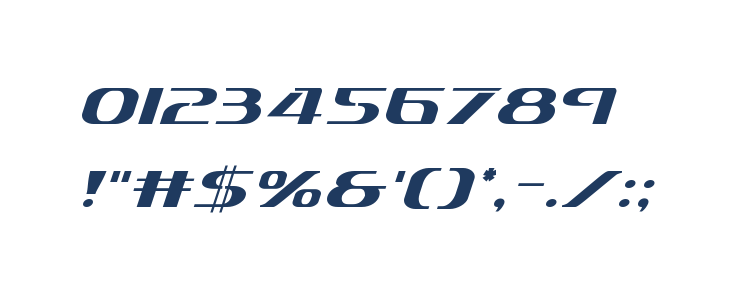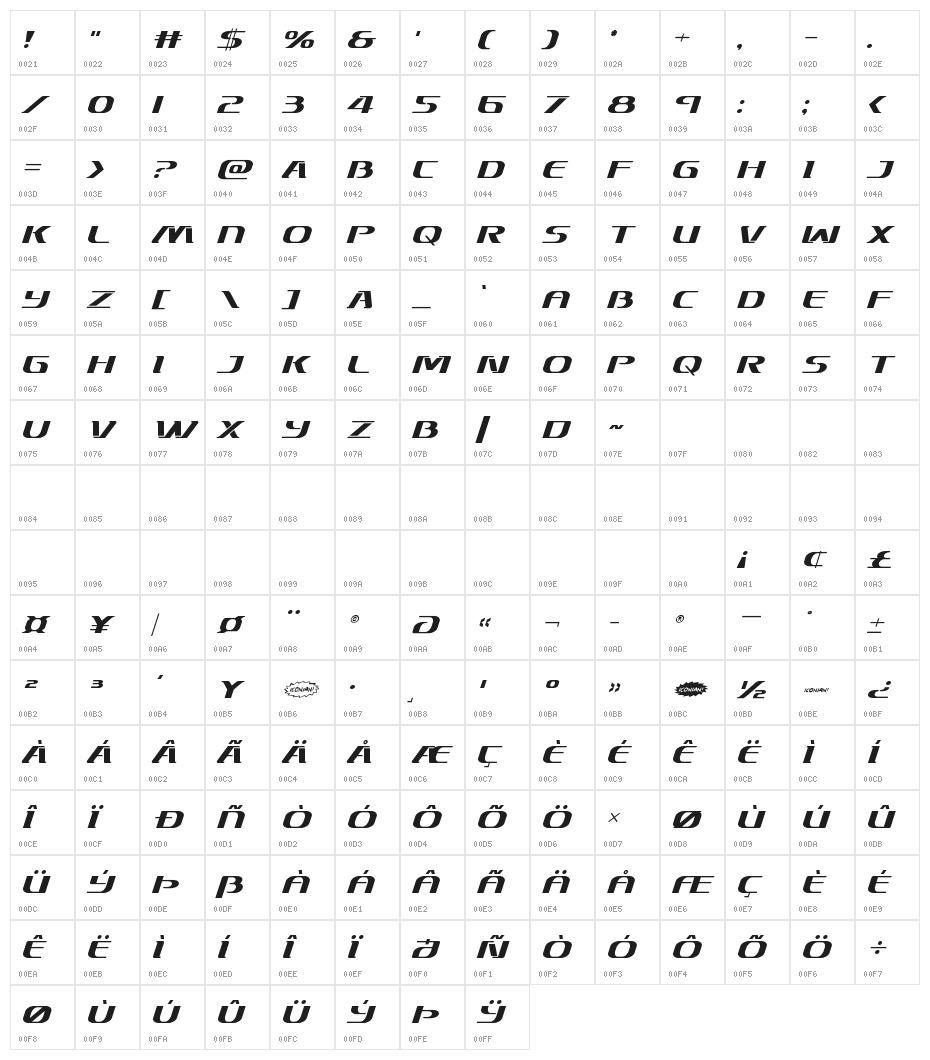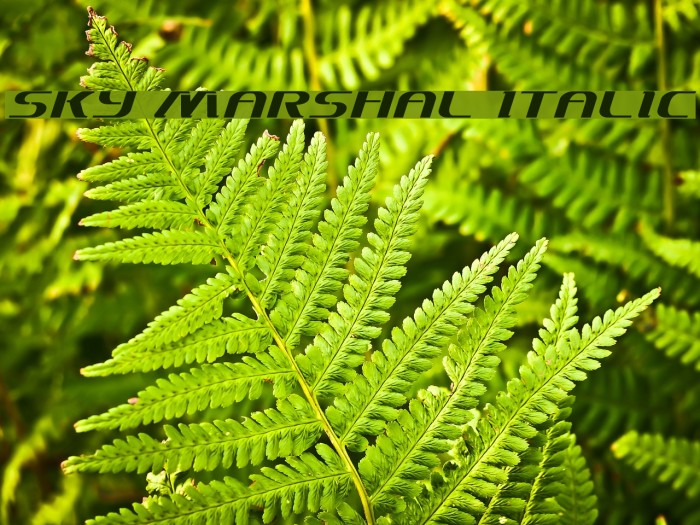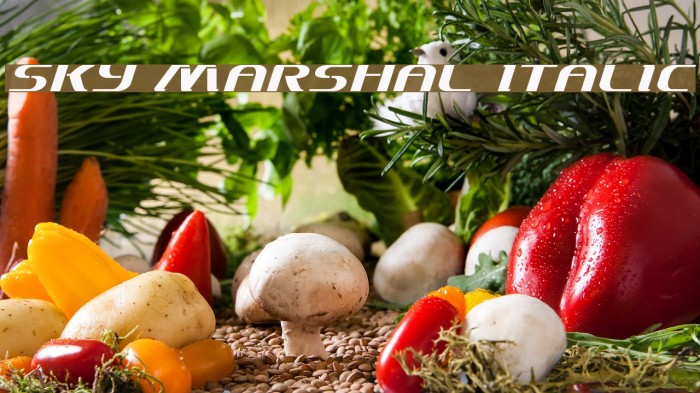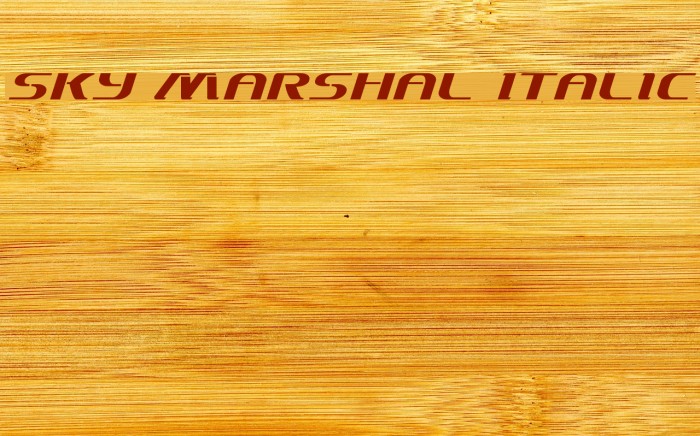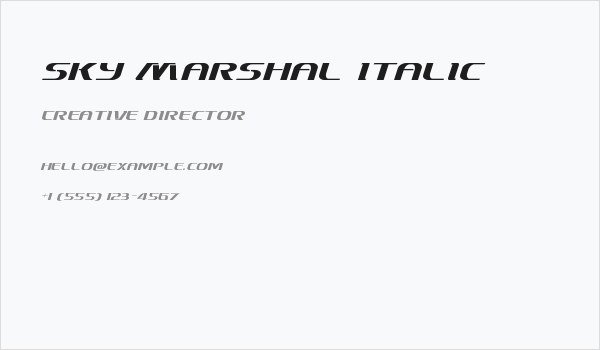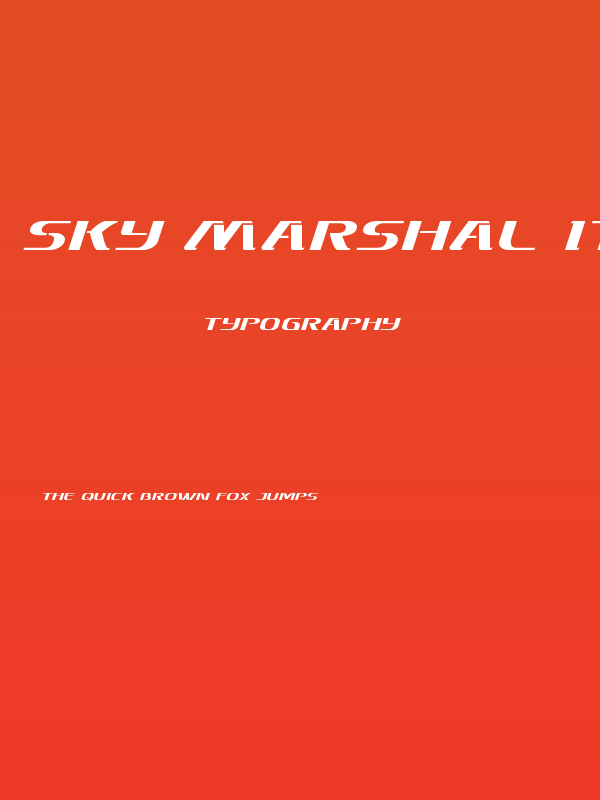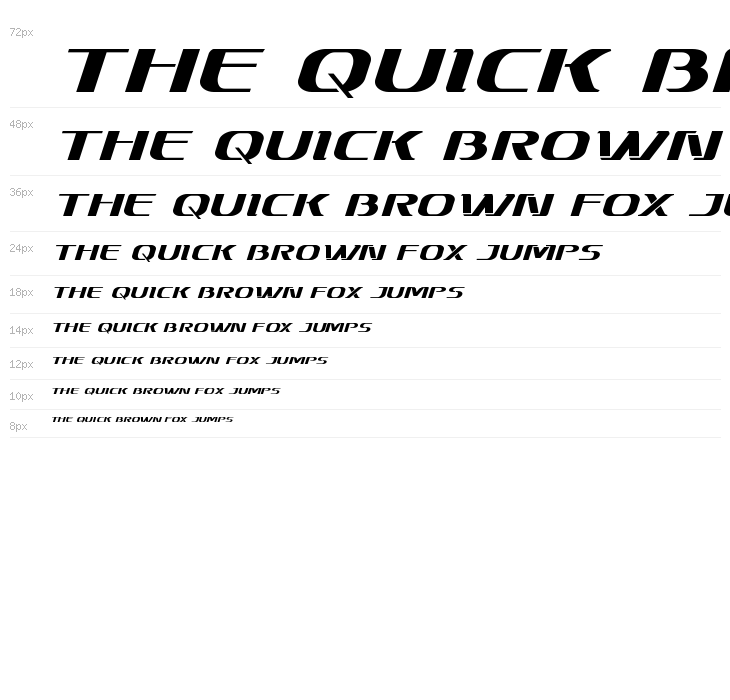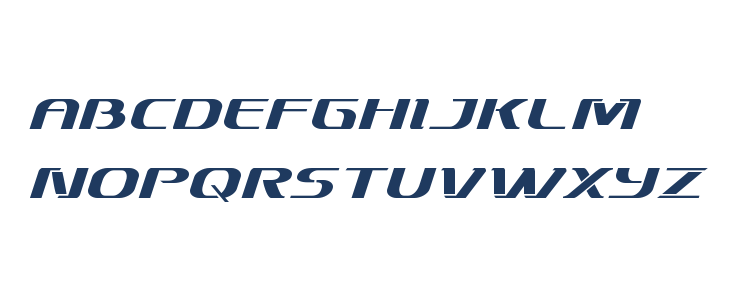
Sky Marshal Italic Font
Sky Marshal Italic Description
This font features a sleek, futuristic design with a distinct italic slant, giving it a dynamic and forward-moving appearance. The characters are bold and angular, with sharp edges and a streamlined form that suggests speed and modernity. The uppercase and lowercase letters maintain a consistent style, with the lowercase mirroring the uppercase in form but reduced in size. Numbers and special characters are designed to match the overall aesthetic, ensuring uniformity across all text. The font's unique style makes it stand out, perfect for projects that require a modern and edgy look.
Proposed ProjectsIdeal for sci-fi themed projects, technology branding, video game titles, and modern advertising.